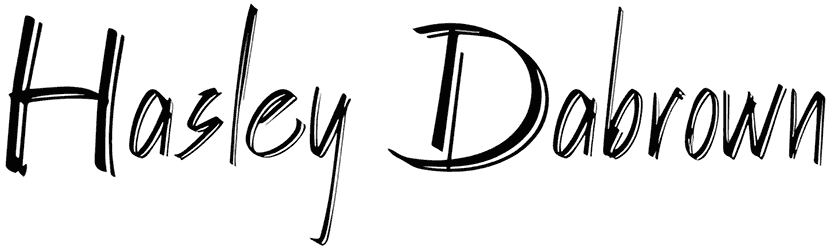
Hasley Dabrown Font
Sometimes adding a bit of delicacy to graphic content would dramatically level up its visibility, and in this way, a magical brush font such as Hasley Dabrown can be totally helpful.
This masterpiece comes with a dramatic style and leads to a sense of honesty, sincerity, personalization, and jauntiness. You can try this script font in all of your editorial projects, including animation posters, social media posts, magazines, applications, or headlines.